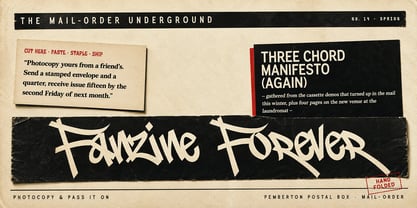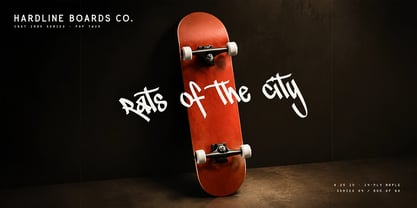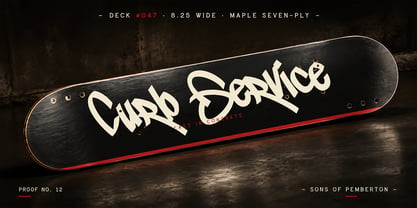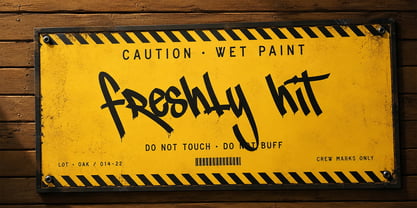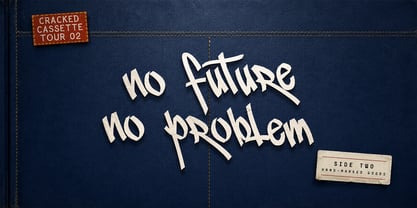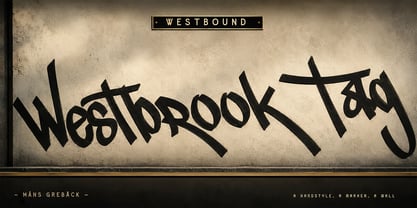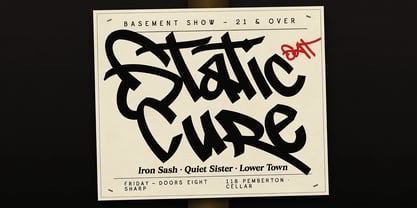
Westbrook Tag
Westbrook Tag is a fast marker handstyle, drawn the way a name is signed across a wall in one pass.
Stroke width stays roughly even but the letters pick up sudden slashes and drag-out tails that cross the next form. There is a real lean to the alphabet and a deliberate looseness — letters are not lined up to a baseline so much as ridden along it. The lowercase carries the most movement; the caps stretch into long horizontal tags with crossbars that overshoot.
Belongs on the steel shutter of a closed shopfront after midnight, or scrawled in black on a courier sticker before it gets slapped on a lamppost.
The font is built with advanced functionality and guaranteed top-notch quality, containing stylistic and contextual alternates, ligatures and more automatic and manual features; all to give you full control and customizability.
It has extensive lingual support, covering all Latin-based languages, from North Europa to South Africa, from America to South-East Asia. It contains all characters and symbols you'll ever need, including all punctuation and numbers.